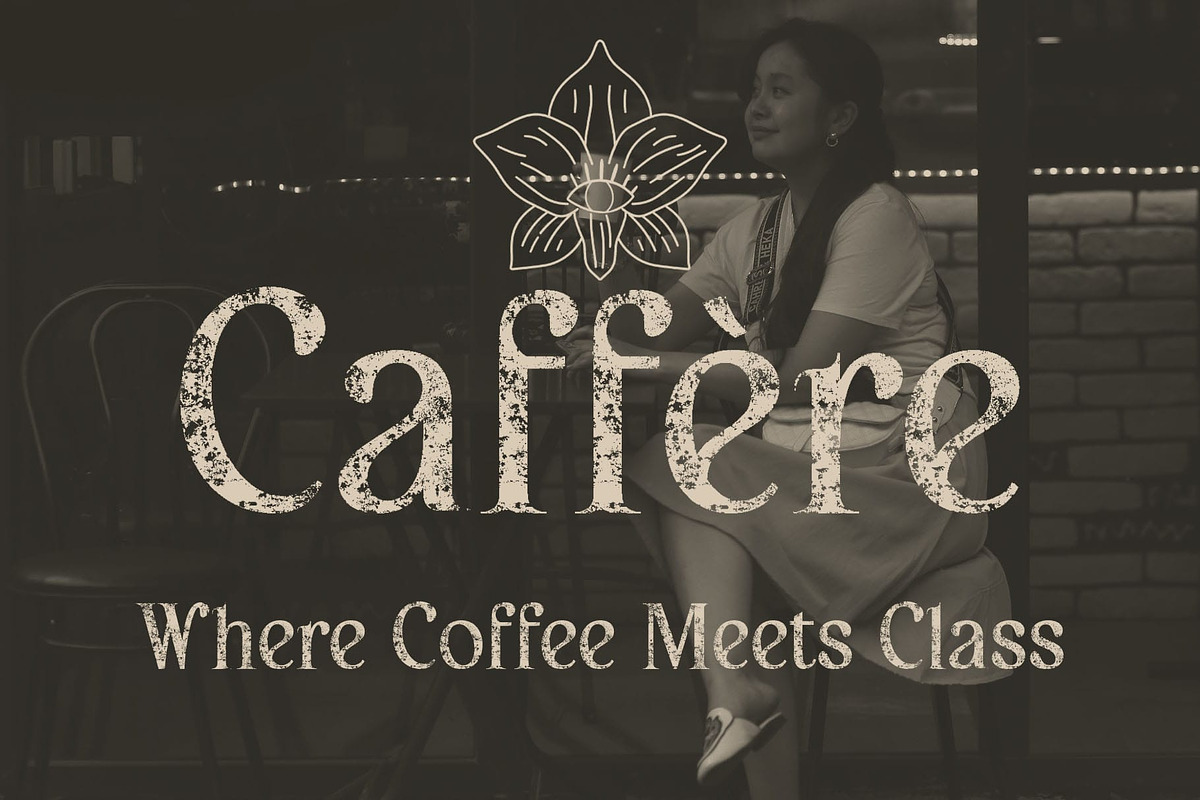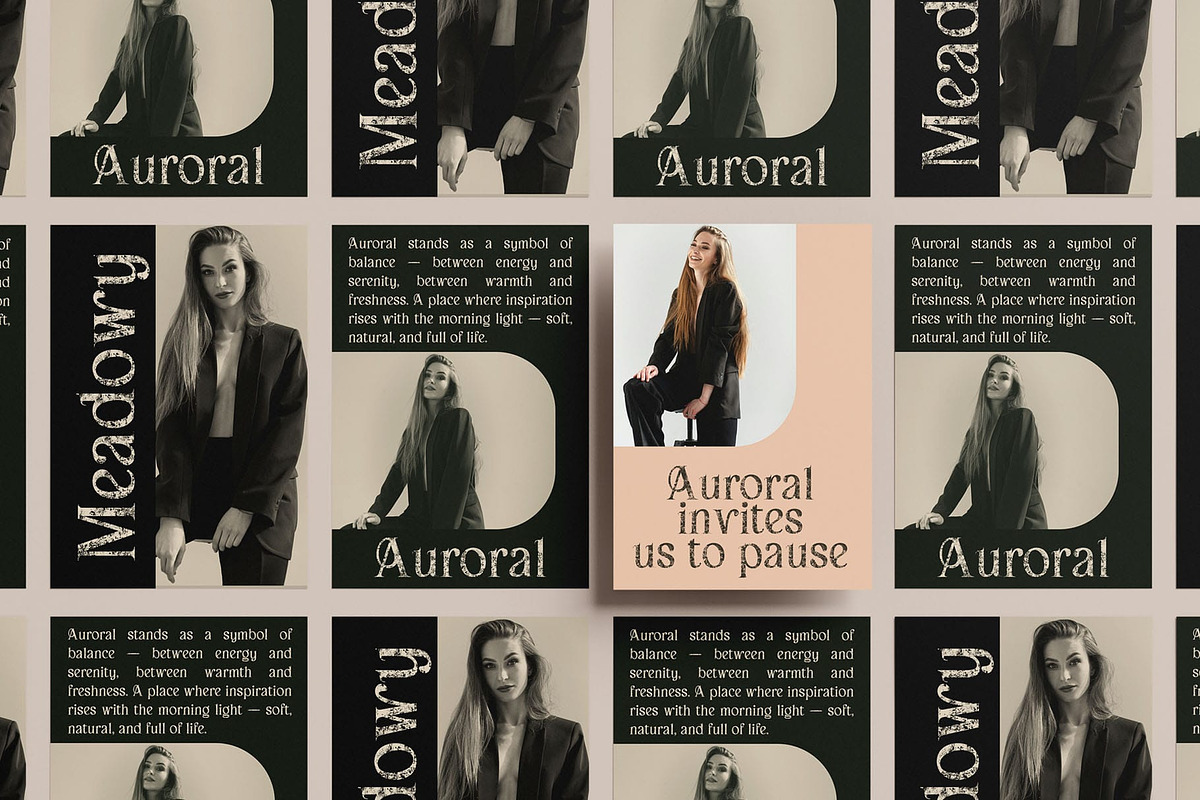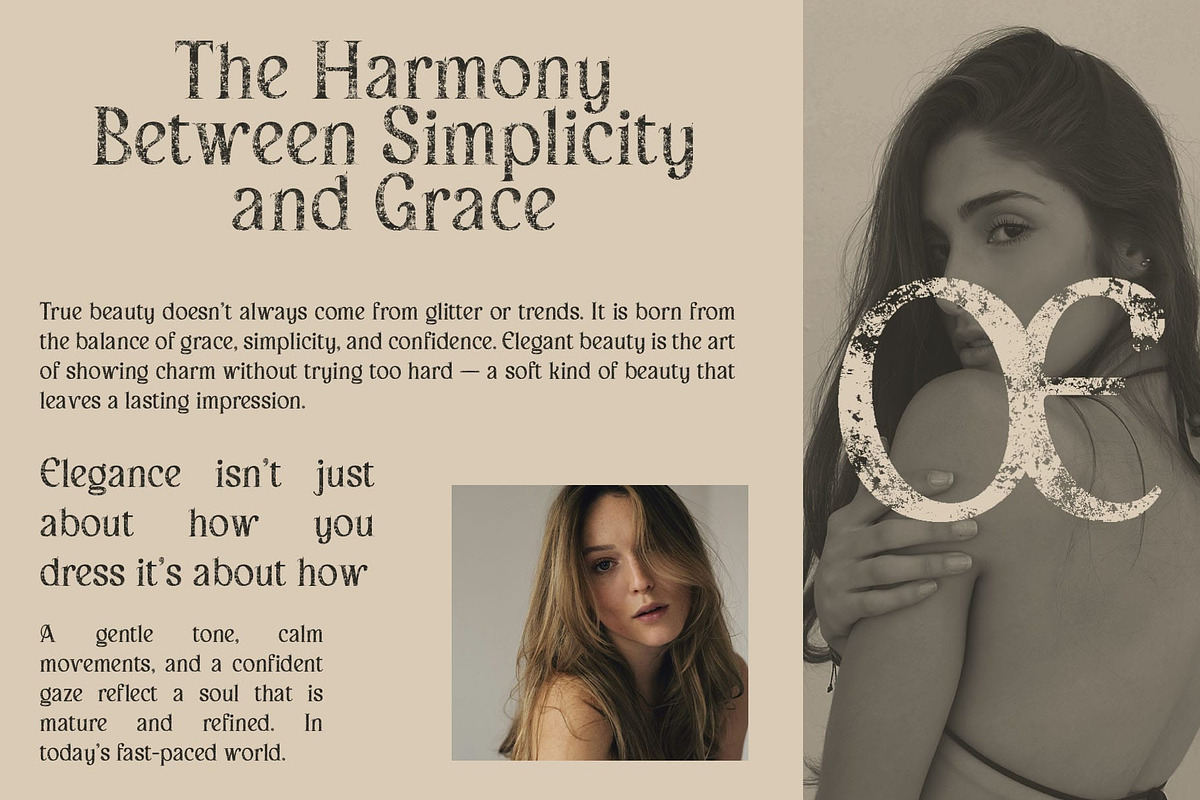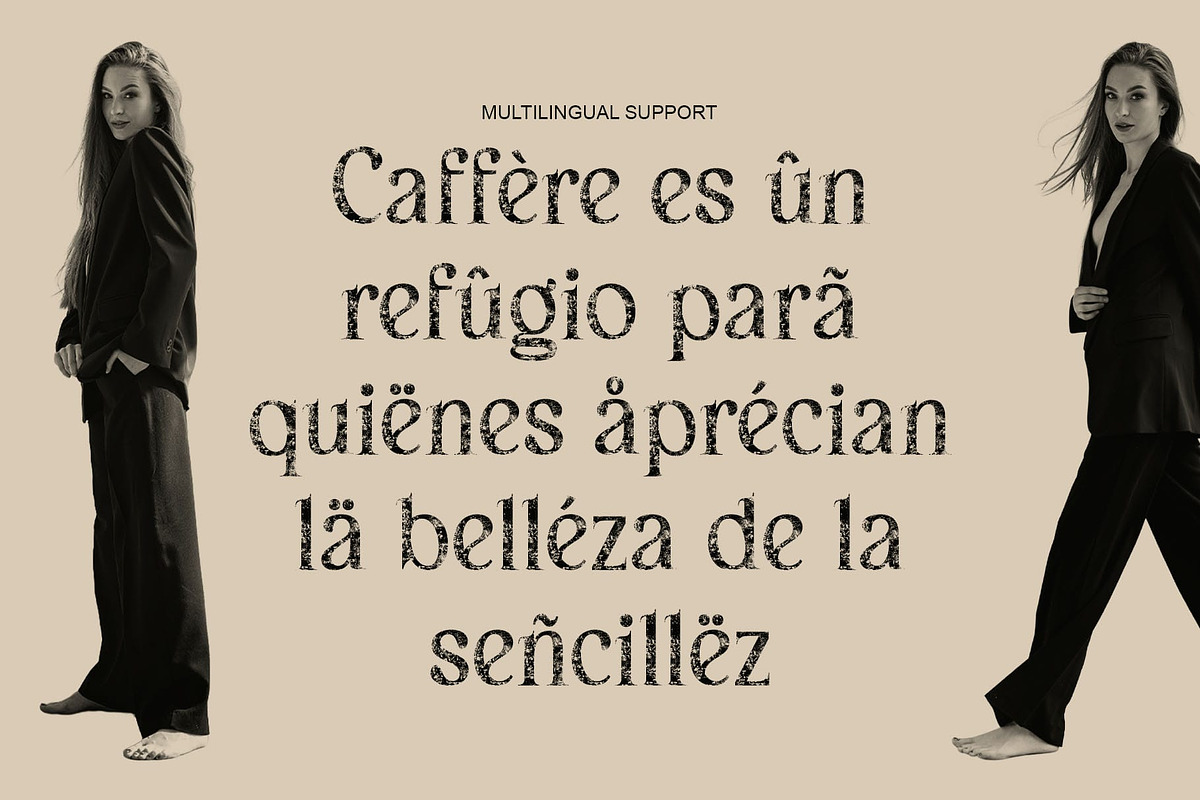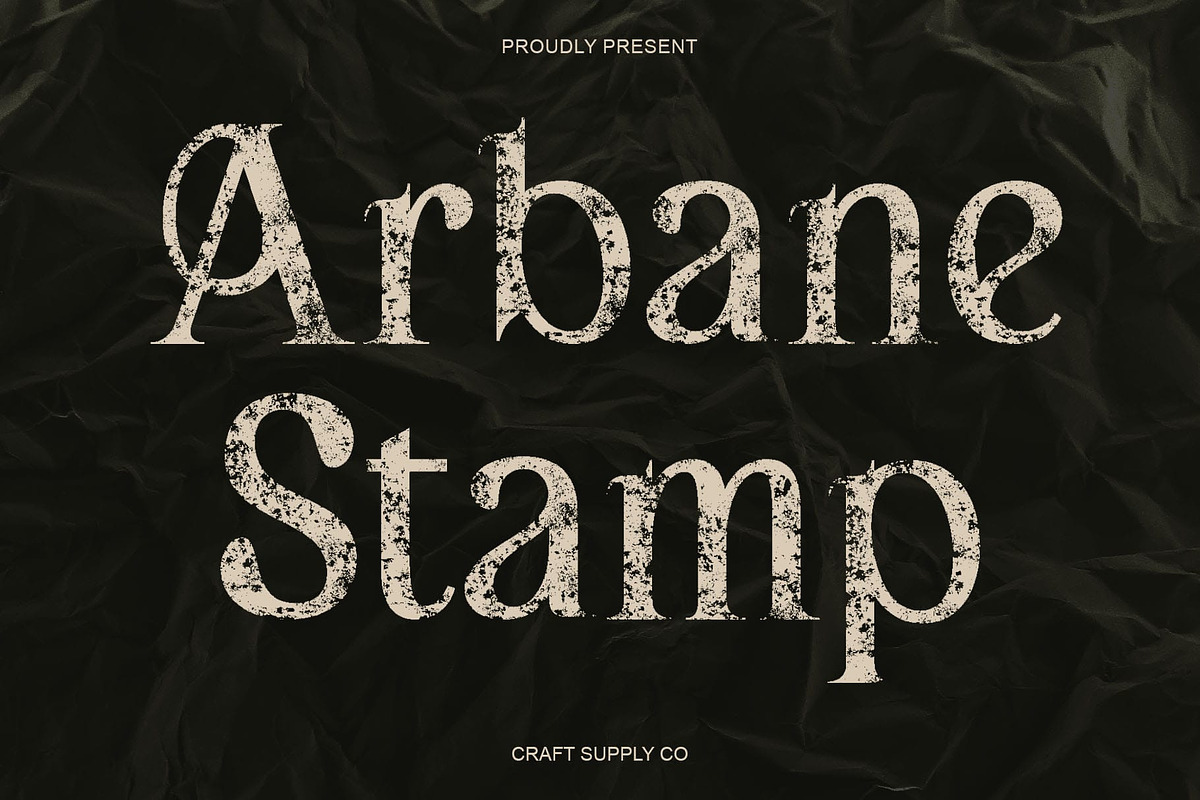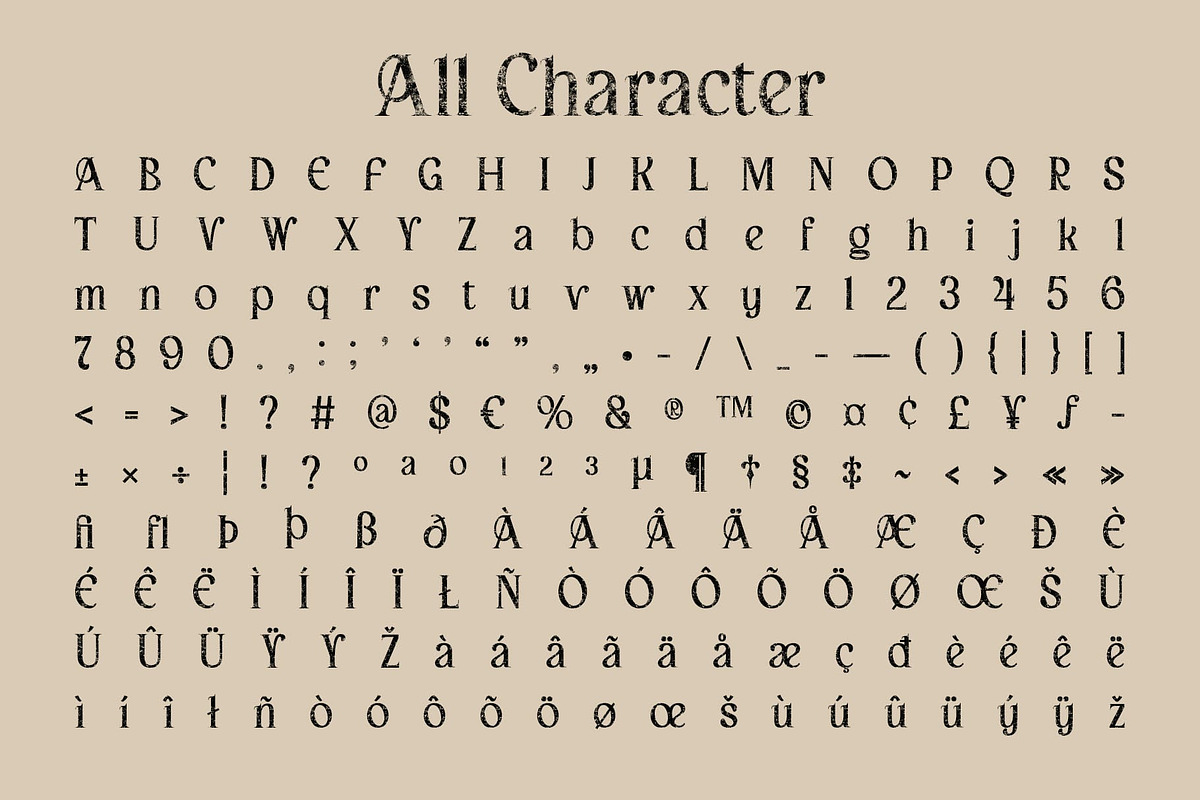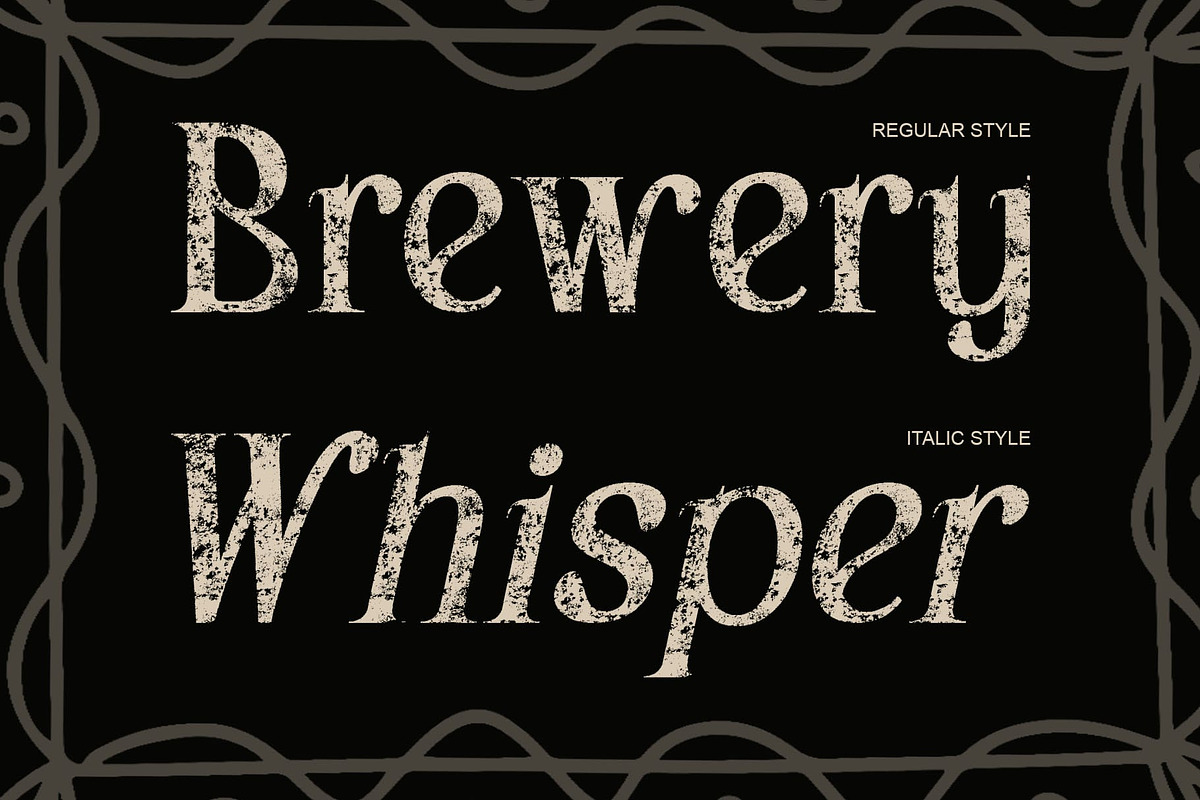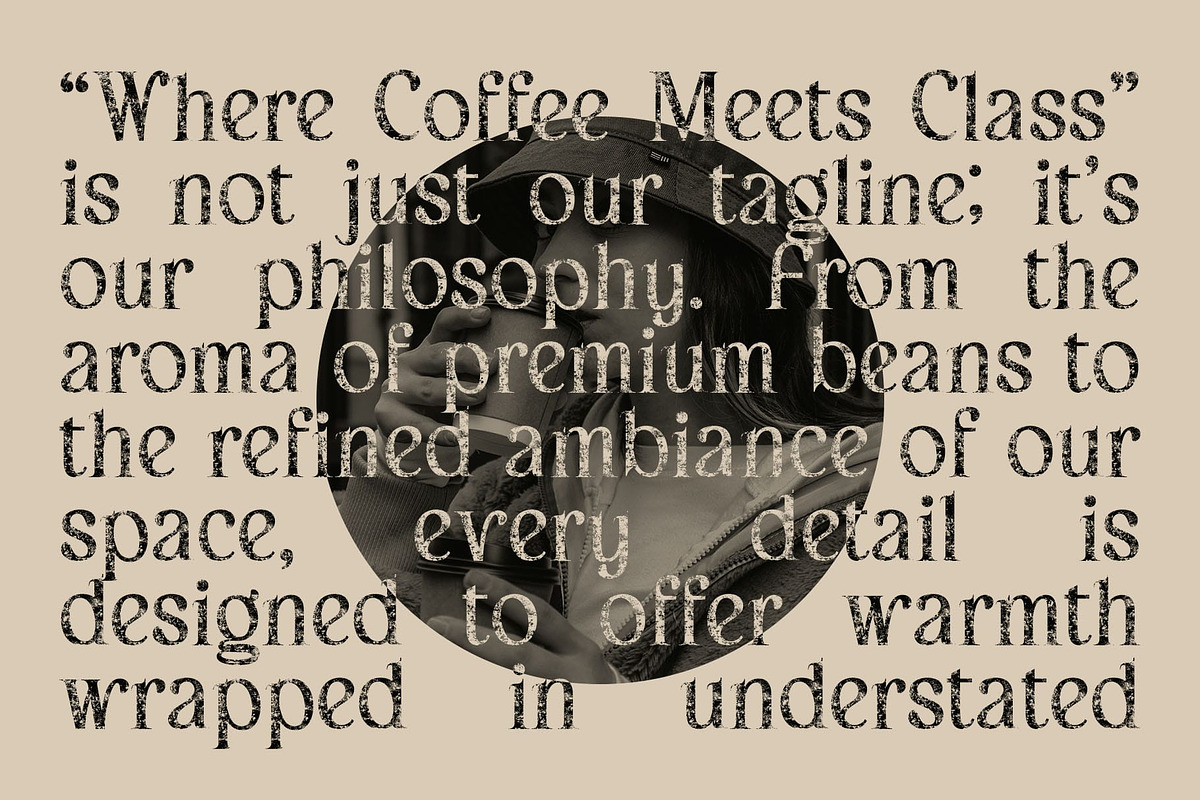
Arbane Stamp
Arbane Stamp – Elegant Display Font with Stamp Texture: Modern Art Nouveau with Vintage Soul
Organic Beauty in Every Curve This is a modern Art Nouveau font that celebrates smooth, flowing lines and refined form. Its graceful curves and fluid structure evoke natural elegance, giving every composition a sense of harmony and sophistication.
Vintage Texture for Artistic Warmth The stamp texture introduces a vintage, handcrafted quality, adding depth and organic imperfection to the polished Art Nouveau style. This blend of modern refinement and aged texture makes this font visually captivating and rich in personality.
Ideal for Elegant and Expressive Designs Perfect for editorials, luxury branding, and fashion campaigns, this font brings a timeless beauty to every project. Its sculpted shapes and subtle textures enhance visual storytelling, making it an excellent choice for designs that need both grace and character.
A Fusion of Modern Elegance and Vintage Charm This font embodies the essence of artistic sophistication a balance between contemporary form and nostalgic depth. Whether for logos, magazine titles, or packaging, it adds a touch of luxury, warmth, and organic beauty to every design.